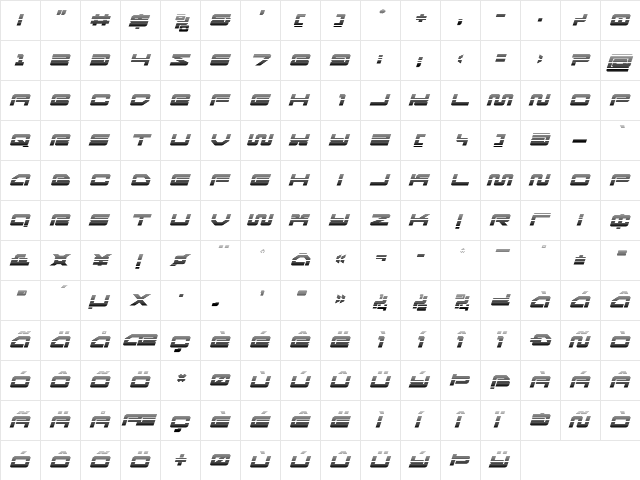
Ranger Force Gradient Italic Regular
Design Context for Ranger Force Gradient Italic Typeface
Ranger Force Gradient Italic brings high-energy athletic personality to the page — its confident, muscular forms are built for impact. The dynamic lean of this cut emphasises speed and emphasis in any layout.
A natural choice for gym brands, fantasy sports, jersey lettering, and action-driven headlines.
Pro Tip: Use Ranger Force Gradient Italic in all-caps headlines where its athletic energy can fully express itself. Pair with a solid, simple sans for supporting text.